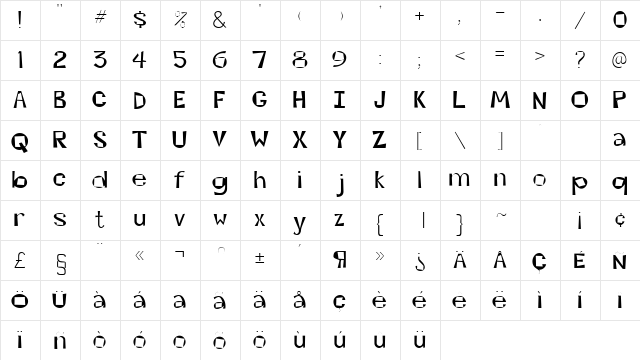
KwiKwitSSK Regular
Design Context for KwiKwitSSK Typeface
KwiKwitSSK takes a measured approach to typography — its balanced proportions and neutral character make it a reliable workhorse for both digital and print work.